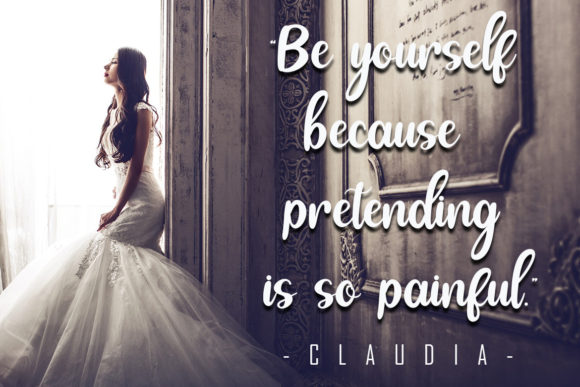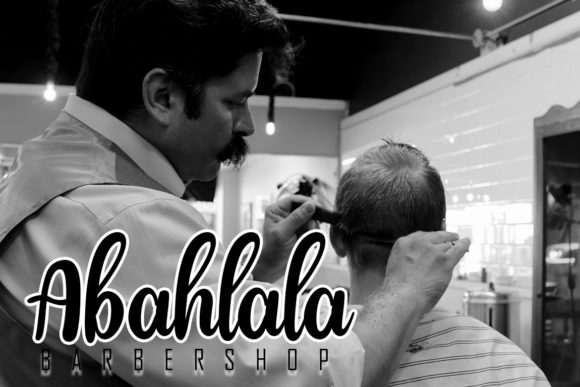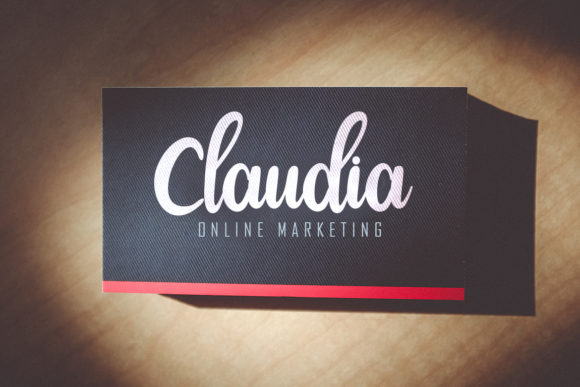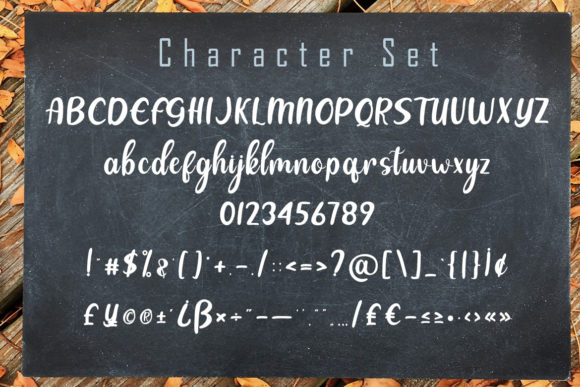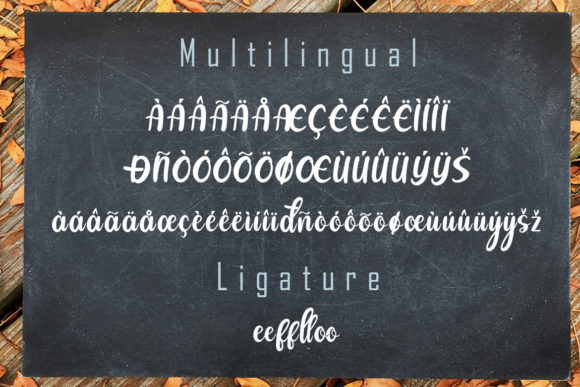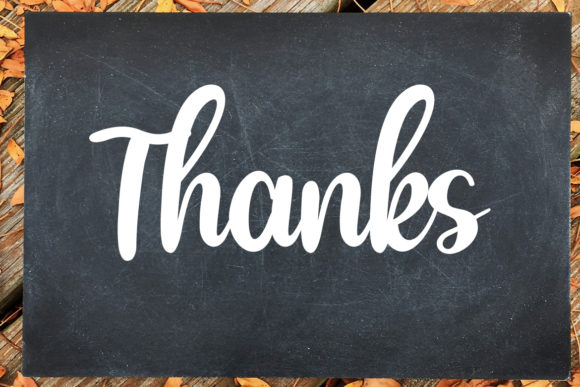
Introducing Blitely Font: The Modern and Casual Handwritten Font
Are you tired of using the same old fonts in your designs? Look no further than Blitely Font, a modern and casual handwritten font that’s sure to become a true favorite. With its casual charm and down-to-earth feel, Blitely is the perfect addition to any design project. In this article, we’ll take a closer look at Blitely Font and explore its features, benefits, and uses.
What is Blitely Font?
Blitely Font is a carefully handcrafted handwritten font that’s designed to be versatile and easy to read. Its casual charm makes it appear wonderfully down-to-earth, readable, and incredibly versatile. Whether you’re using it on busy backgrounds or as a standalone headline, Blitely is sure to make a statement.
Features of Blitely Font
So, what makes Blitely Font so special? Here are just a few of its key features:
- Modern and casual design: Blitely Font has a fresh and modern look that’s perfect for designs that need a casual touch.
- Handwritten with care: Each letter has been carefully handcrafted to ensure that the font looks natural and authentic.
- Highly versatile: Blitely Font can be used in a wide range of design contexts, from busy backgrounds to standalone headlines.
- Easy to read: Despite its casual design, Blitely Font is incredibly easy to read, making it perfect for body text and other applications where legibility is key.
Benefits of Using Blitely Font
So, why should you choose Blitely Font for your next design project? Here are just a few benefits of using this amazing font:
- Adds a personal touch: Blitely Font’s handwritten design adds a personal touch to any design project, making it perfect for crafts, DIY projects, and other applications where a human touch is desired.
- Stand out from the crowd: With its unique and modern design, Blitely Font is sure to help your design stand out from the crowd.
- Easy to use: Blitely Font is incredibly easy to use, with a simple and intuitive design that makes it easy to get started.
- Compatible with a wide range of applications: Blitely Font can be used in a wide range of design applications, from Adobe Creative Suite to Canva and other graphic design software.
Uses of Blitely Font
So, what can you use Blitely Font for? The possibilities are endless! Here are just a few ideas to get you started:
- Branding and marketing materials: Use Blitely Font to add a personal touch to your branding and marketing materials, such as business cards, brochures, and flyers.
- Crafts and DIY projects: Blitely Font is perfect for crafts and DIY projects, such as handmade cards, gift tags, and other paper crafts.
- Social media graphics: Use Blitely Font to create eye-catching social media graphics, such as Facebook posts, Instagram stories, and Twitter headers.
- Web design: Blitely Font can be used in web design to add a personal touch to your website’s typography.
In conclusion, Blitely Font is a modern and casual handwritten font that’s sure to become a true favorite. With its casual charm, down-to-earth feel, and high versatility, Blitely is the perfect addition to any design project. Whether you’re a designer, crafter, or DIY enthusiast, Blitely Font is a must-have font that’s sure to inspire your creativity.